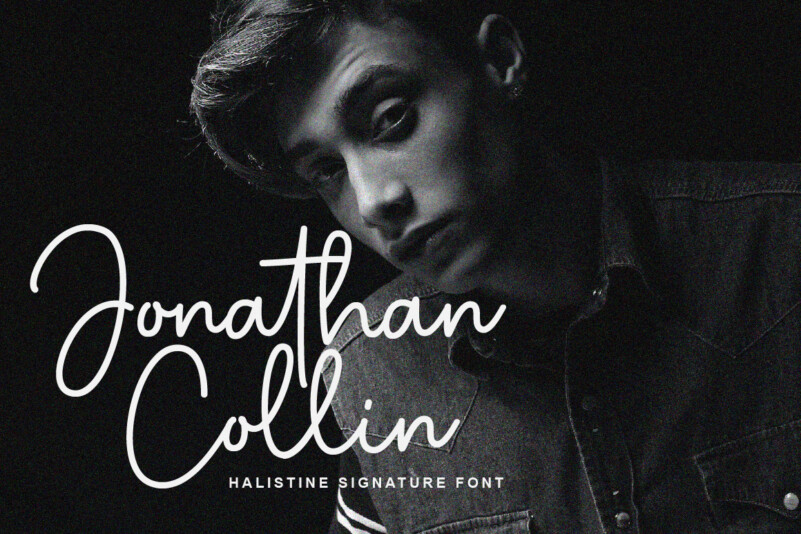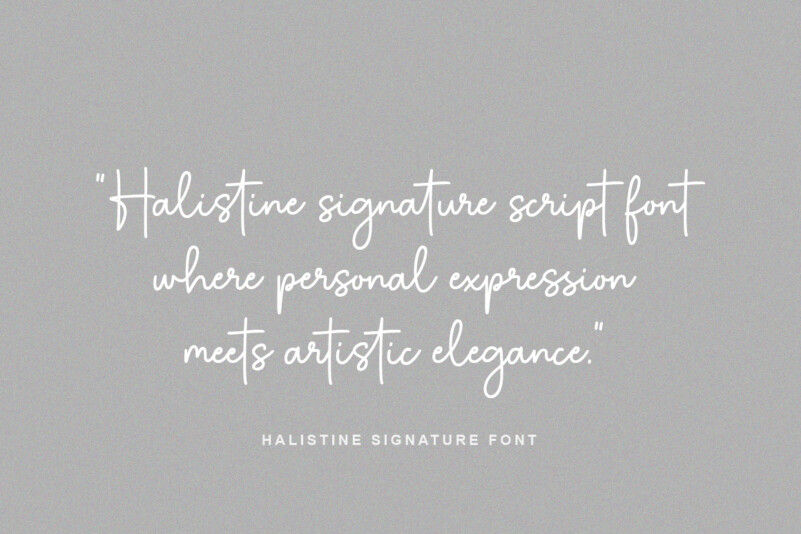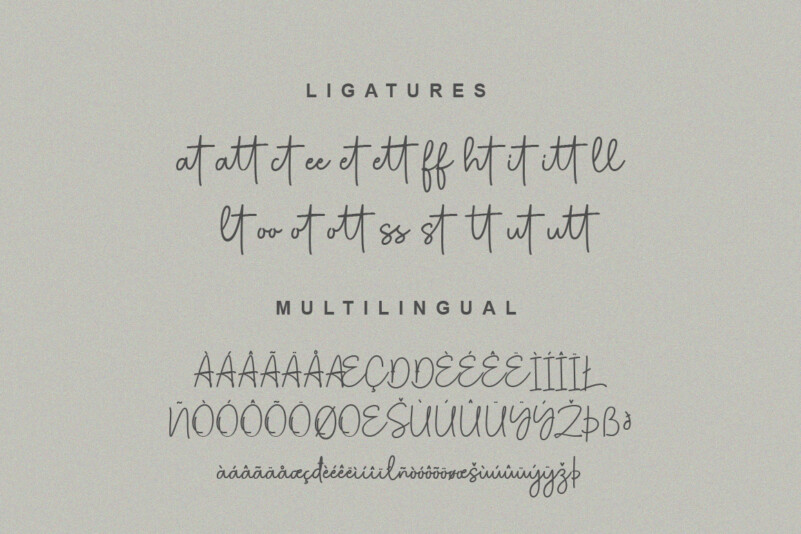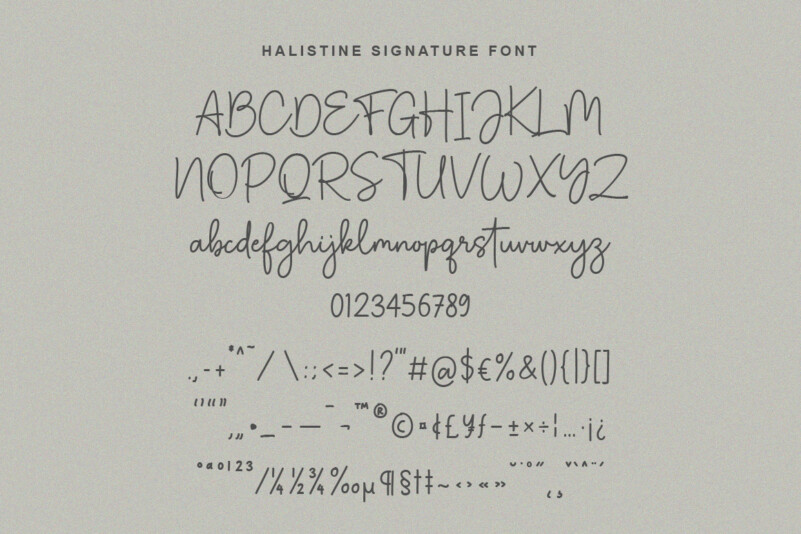
Halistine Signature Font
Halistine Signature Font is a monoline script font with a signature style and a handwritten appearance. Inspired by handwritings, this font exudes elegance, smoothness, and a personal touch. This font is suitable for designs that require a personal touch and a casual feel.